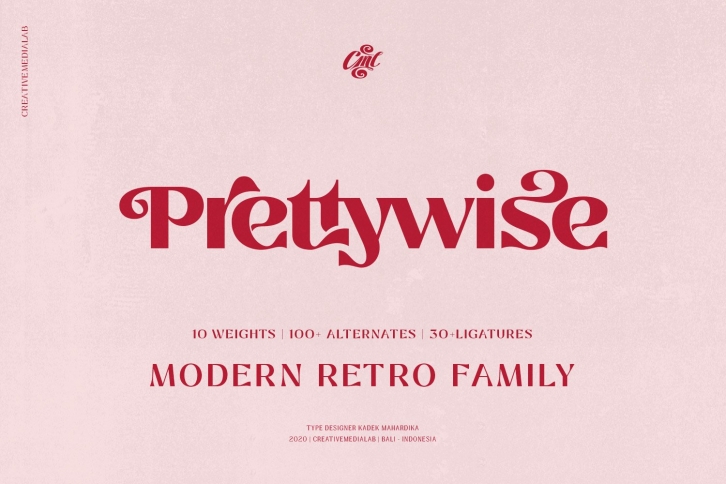
Prettywise Modern Retro is a great font that was designed by creativemedialab. Imagine the amount of combinations you can create using this font! The archive is 13.61 MB and it was released on September 20, 2020. Prettywise Modern Retro looks beautiful on wedding invitations, greeting cards, logos, posters, labels, t-shirt designs, logos, business cards and is perfect for use in ink or watercolor works, fashion, magazines, packaging and food menus, children's books and more!